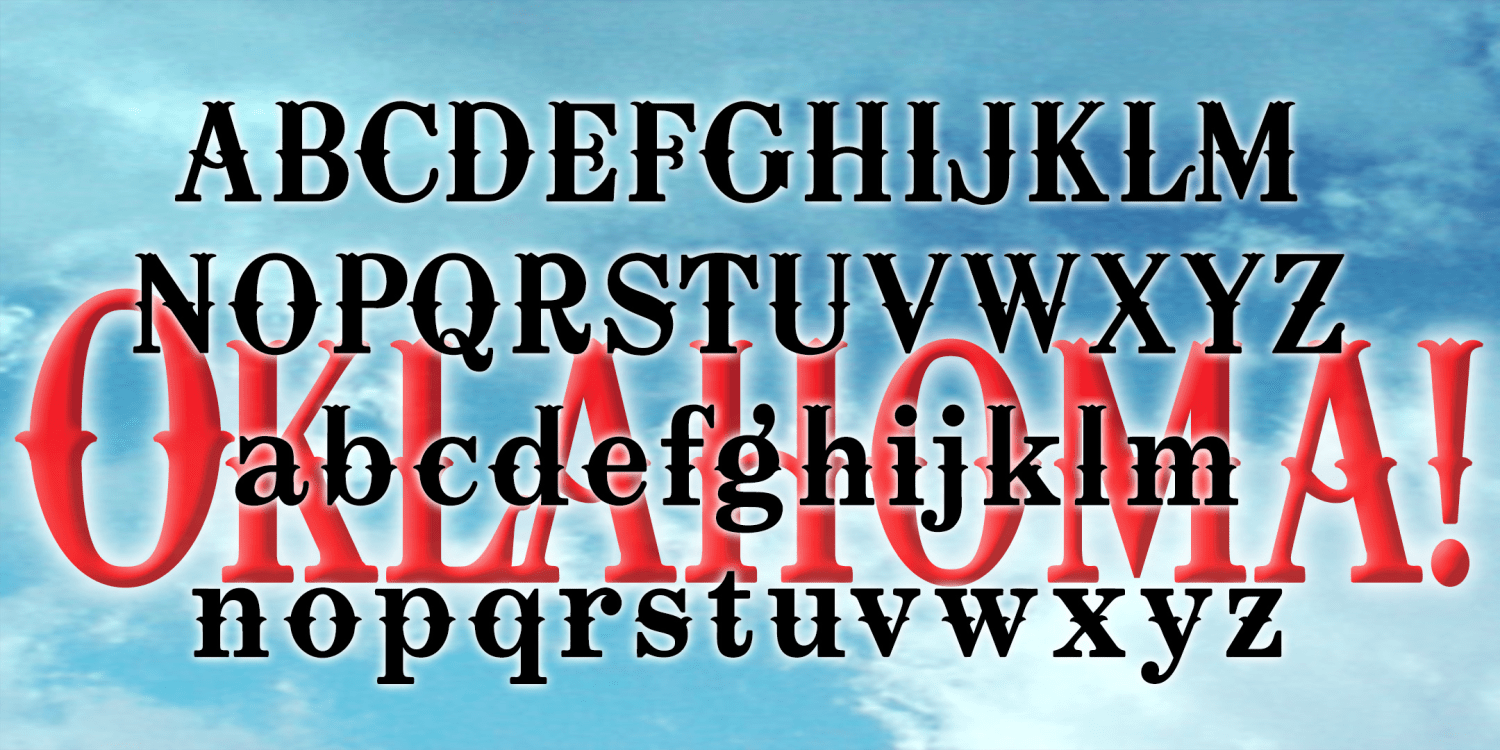
OKLAHOMA is a fancy Western-style font, inspired by the opening titles of the classic musical film of the same name (1955, directed by Fred Zinnemann, art direction by Joseph C. Wright.) A graceful woodtype that sings, a nice compliment to the early 1900s…